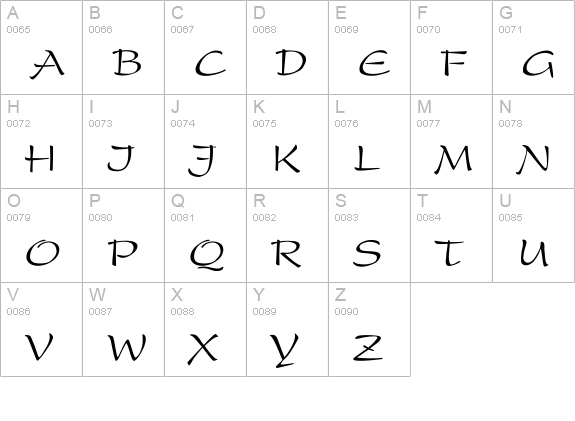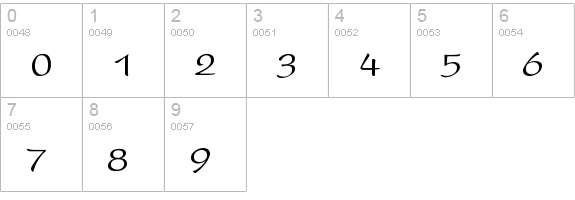
Leibent-Normal Font Details
Leibent-Normal is the standard, neutral variant in the Leibent typeface family \xE2\x80\x94 well suited to general body text, paragraphs, and standard typographic work.
Leibent-Normal font is a stunning typeface that combines elegance and modernity in a unique way. Its clean and sleek lines make it perfect for various design projects, ranging from invitations to branding materials. With its balanced letterforms and effortlessly legible characters, this font brings a touch of sophistication to any project. What makes Leibent-Normal font even more remarkable is that it is available for free! Yes, you read that right. This amazing font is freely available to download at FontsMarket.com, a trusted source for high-quality fonts. Whether you're a professional designer or simply a creative enthusiast, you can now add Leibent-Normal font to your collection without spending a dime. With its versatility and timeless appeal, Leibent-Normal font can be used in a multitude of contexts. From website design to packaging, this font shines in every medium. Its versatility is further enhanced by its extensive character set, including uppercase and lowercase letters, numerals, punctuation marks, and special symbols. The clean and crisp lines of Leibent-Normal font make it highly readable even at smaller sizes, ensuring that your message is conveyed effortlessly to your audience. Its subtle yet impactful presence will elevate any design, giving it a professional and polished look. Whether you're working on a personal project or a client's assignment, Leibent-Normal font is a must-have in your font library. Its free availability makes it even more accessible, allowing designers of all levels to benefit from its beauty and versatility. So, why wait? Visit FontsMarket.com today and download Leibent-Normal font for free. Unleash your creativity and let this font transform your designs into works of art.